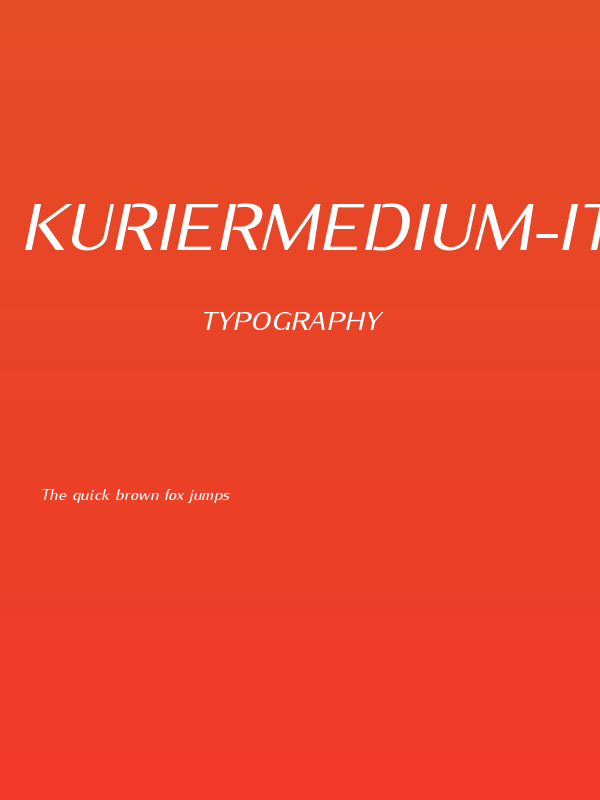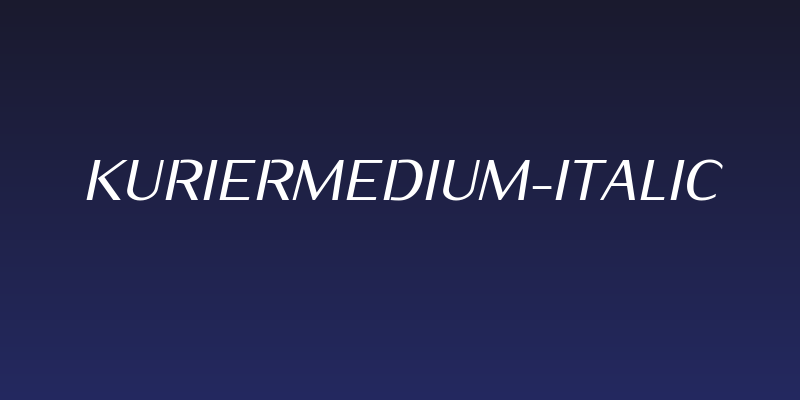
KurierMedium-Italic Font
KurierMedium-Italic Description
This font features a sleek and modern design with a slight italic slant, giving it a dynamic and elegant appearance. The characters are well-proportioned with smooth curves and sharp edges, providing a clean and professional look. The uppercase letters are bold and commanding, while the lowercase letters maintain a consistent flow, enhancing readability. The numerals are distinct and clear, making them suitable for various applications. Special characters are designed with precision, adding to the font's versatility. Overall, this font exudes a sense of sophistication and style, making it ideal for contemporary design projects.